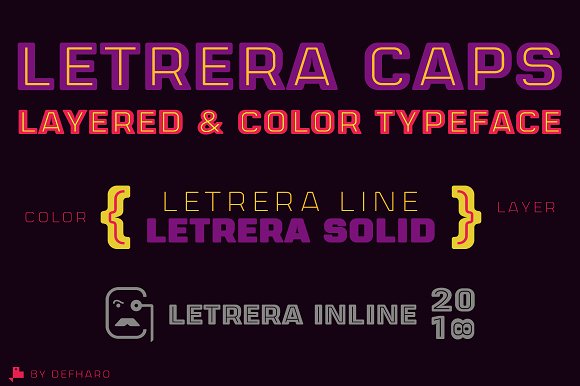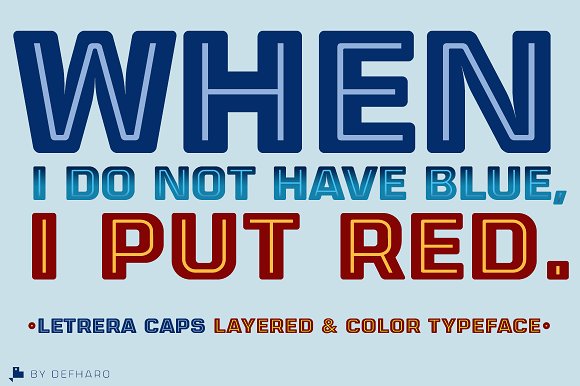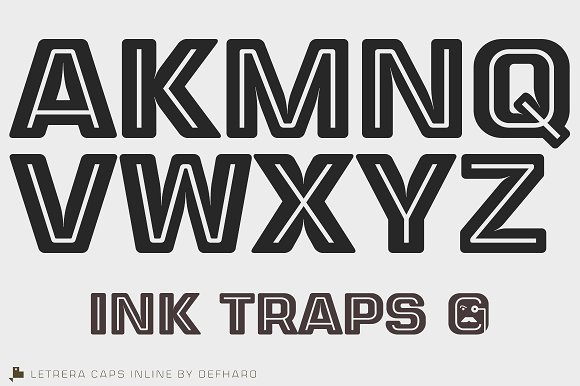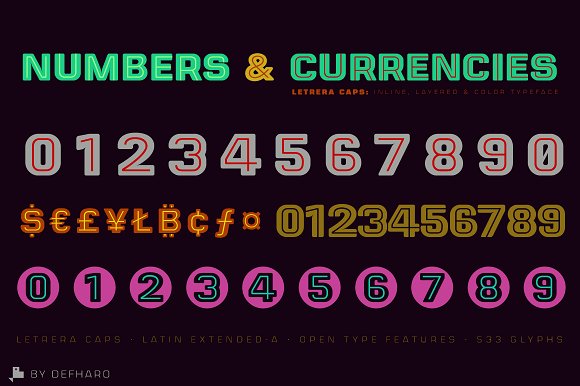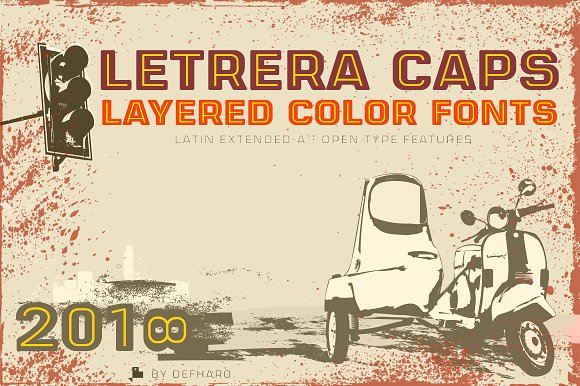
Letrera Caps – Layered & Color Fonts
Letrera Caps Layered & Color Fonts is a rounded square-typed display type with three styles that pays homage to the Sans Serif Inline letters, which are very popular in the design of colorful signs and signs from the mid-20th century.